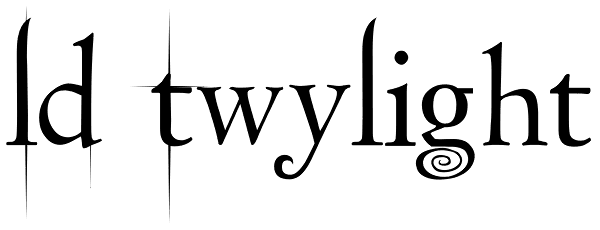
LD Twylight
It's here! Look no further! LD Twylight. You don't have to be a fan to see that LD Twylight could make spooky Halloween party invitations or great additions to scrapbooking projects. No Question!
LD Twylight Font